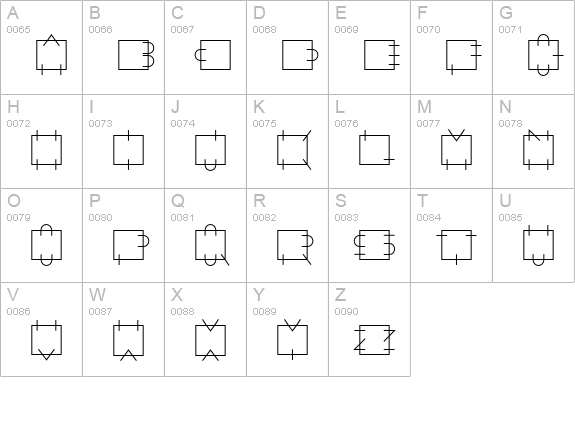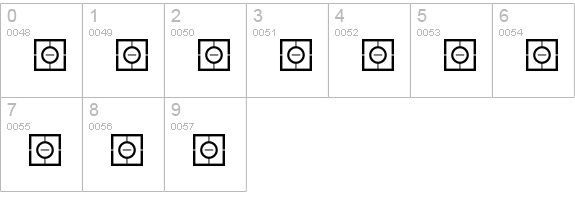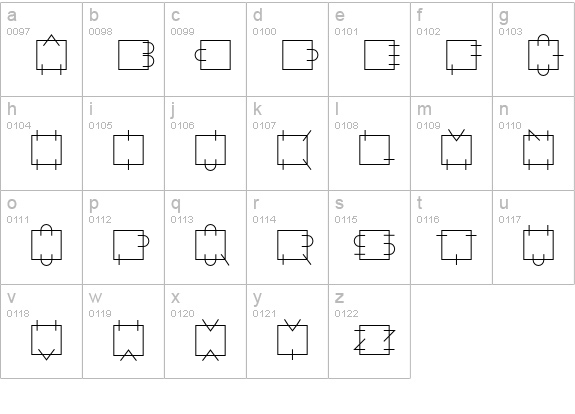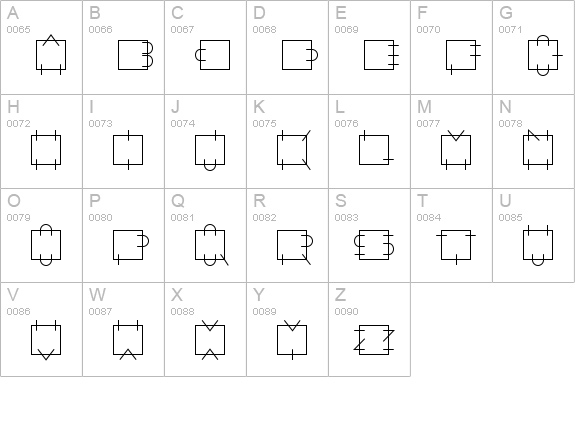
AlphaGeometrique-Square Font Details
AlphaGeometrique-Square is a modern and stylish font that exudes a sense of geometric sophistication. With its clean lines and sharp angles, this font is perfect for projects that require a sleek and contemporary look. The square shapes of the letters give it a bold and eye-catching appearance, making it a standout choice for logos, headlines, and other design elements. The best part? AlphaGeometrique-Square is available for free download at FontsMarket.com! Whether you're a designer looking to add a unique touch to your projects or just someone who appreciates a good font, this typeface is sure to impress. Don't miss out on the opportunity to enhance your designs with the striking visual appeal of AlphaGeometrique-Square.